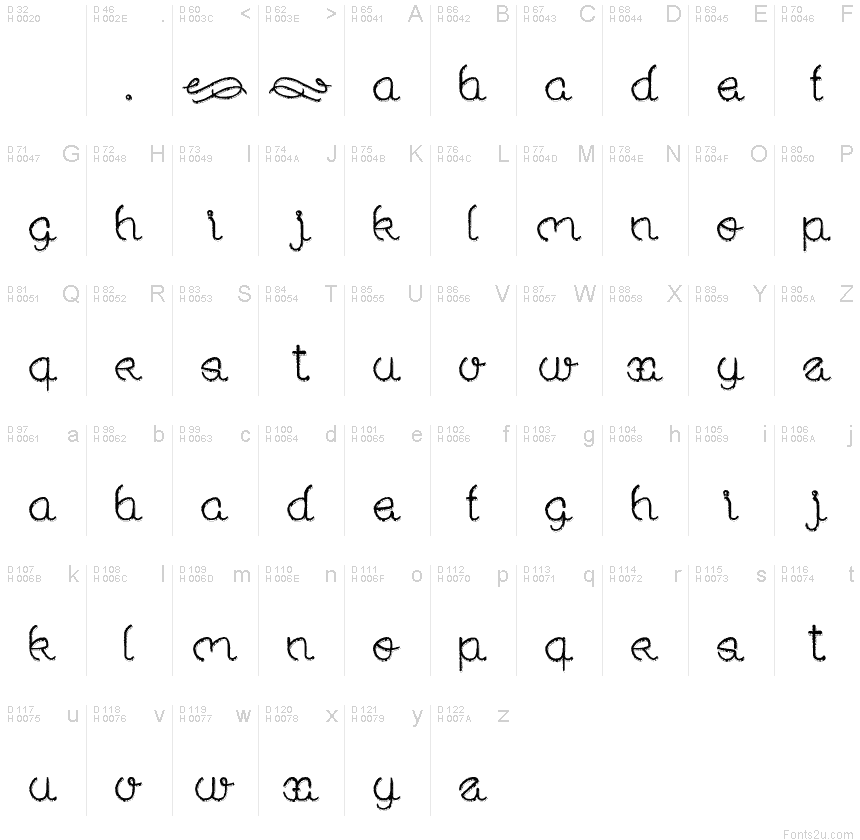
Sold Out is a free sketch-effect display font with tall looping letters and a loose continuous silhouette. Rough offset edging and small hatched shadows make the dark strokes look printed slightly out of register.
On posters and album covers, its stretched curves lend an offbeat music-poster character, also suited to cafe packaging and informal event graphics. The drawn contours let a name function as part of an illustration or hand-rendered shop sign rather than neutral lettering.
Sold out